Bubble Text
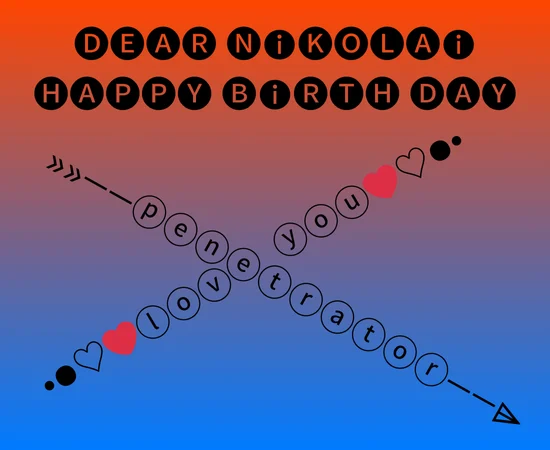
Bubble Text
Bubble text is a fun and stylish way to transform plain text into a playful, rounded font style that looks as if each character is encased in a bubble. This unique text style is perfect for social media bios, messages, and creative projects where you want to add a touch of personality. Bubble text maintains the readability of the original characters while giving them a smooth, circular appearance, making it an eye-catching choice for decorative purposes. Unlike standard bold or italic fonts, bubble text uses special Unicode symbols that work seamlessly across different platforms, ensuring that your styled text remains intact wherever you paste it.
Customize Your Text with Unique Styles
With a bubble text generator, you can instantly convert any regular text into this distinctive format without the need for complex software or design skills. Whether you want to highlight a username, create aesthetic captions, or add a fun twist to your messages, bubble text offers a visually appealing way to stand out. We also offer decorated and unique font combinations that resemble a rounded shape, allowing you to explore different styles.